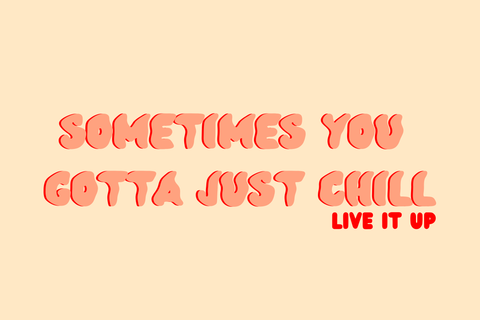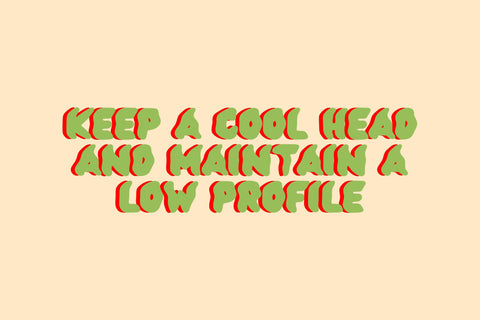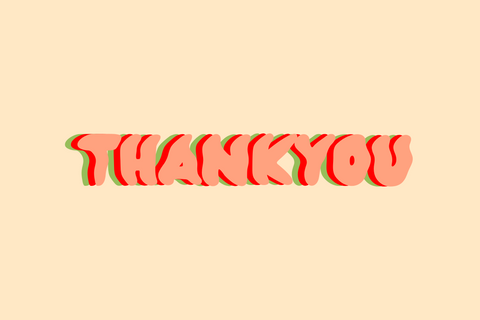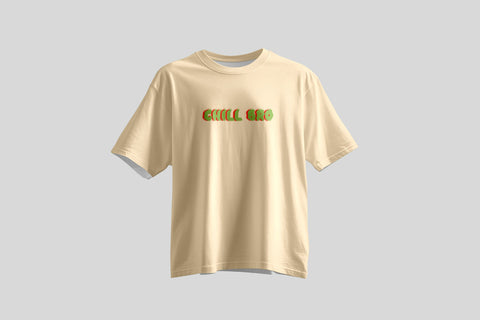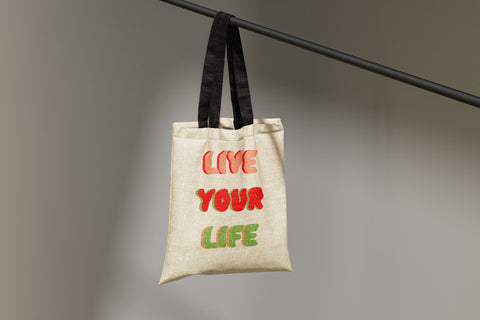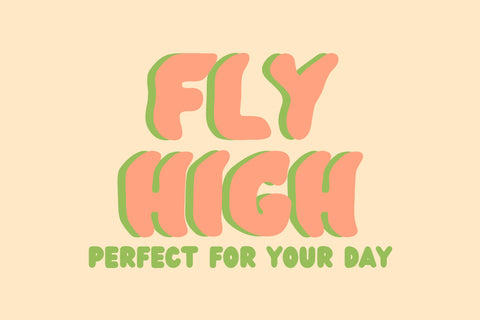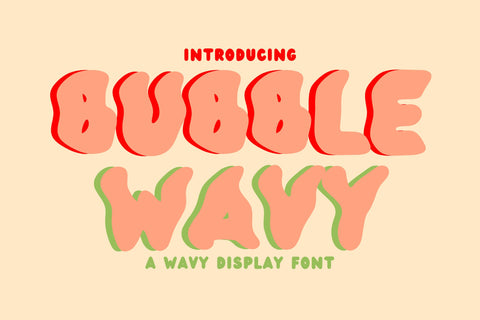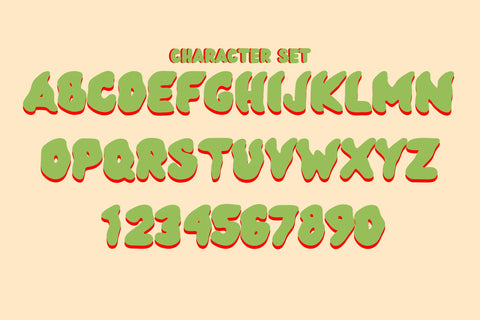
Bubble Wavy Font
Bubble Wavy Font is a fun, bubbly, and energetic typeface with a wavy, groovy touch. Perfect for adding a playful and lively vibe to your designs, this font is great for posters, branding, social media graphics, children’s books, and more. Its smooth, rounded letters combined with a unique wavy effect make it stand out in any creative project. Whether you're going for a retro, whimsical, or modern aesthetic, Bubble Wavy Font will bring joy and movement to your text!
- Playful and Groovy Style: A perfect mix of bubbly and wavy letterforms for a fun, dynamic look.
- Great for Creative Projects: Ideal for posters, invitations, branding, social media, kids’ content, and more.
- Smooth and Rounded Lettering: Gives a friendly, soft, and approachable feel.